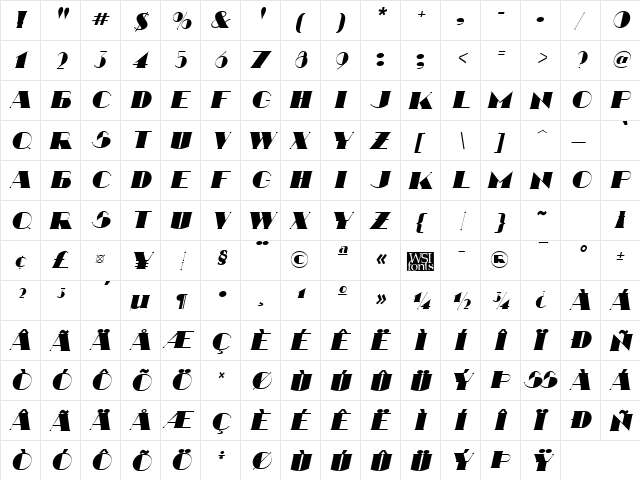
Nathan Italic
Design Context for Nathan Typeface
Nathan is a composed and adaptable typeface that performs quietly and consistently across a wide range of design contexts. The slanted form adds forward momentum and visual energy.
Pro Tip: Try Nathan for annotation and caption copy alongside an upright companion — the contrast in angle creates a dynamic but ordered typographic system.